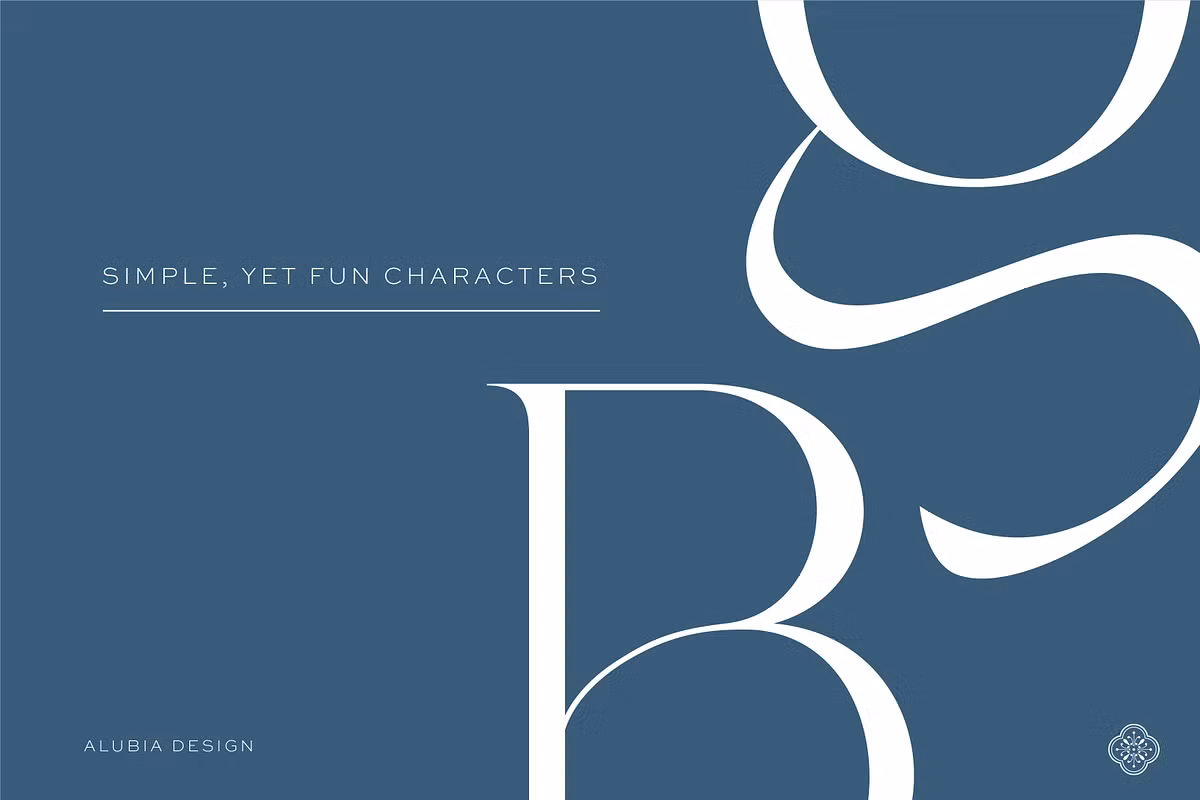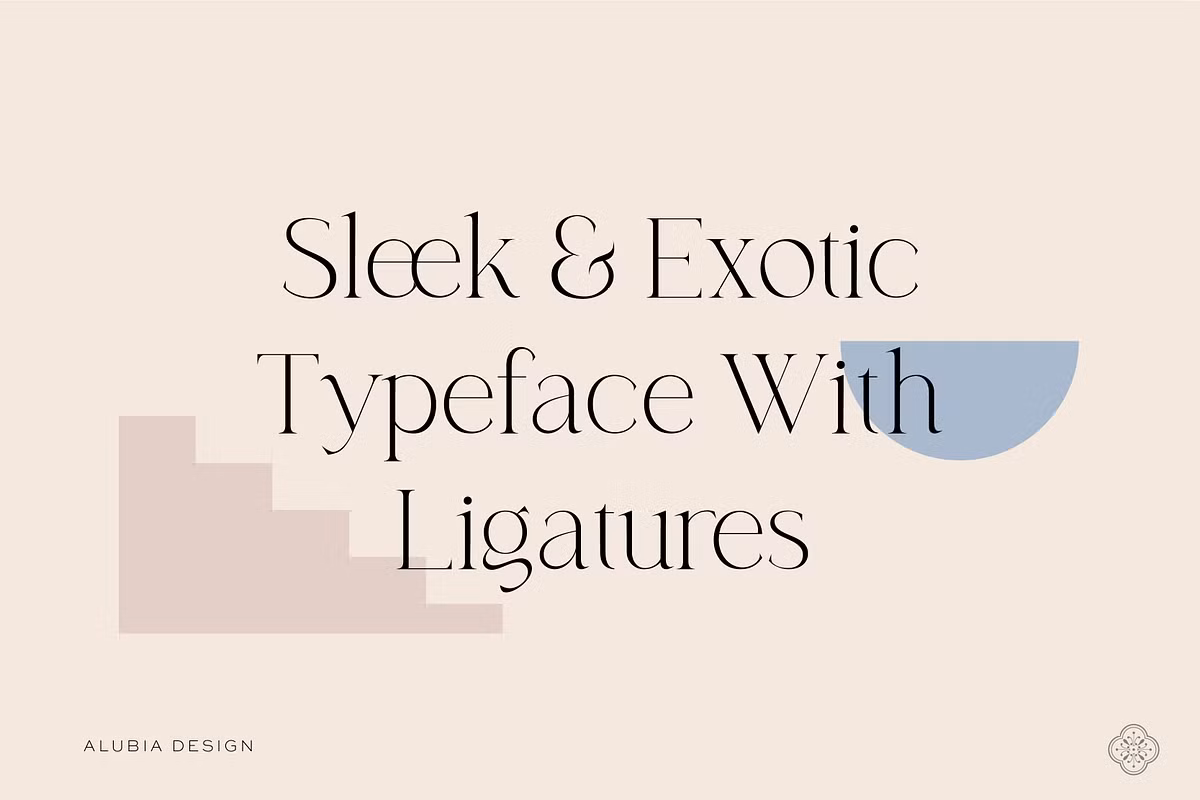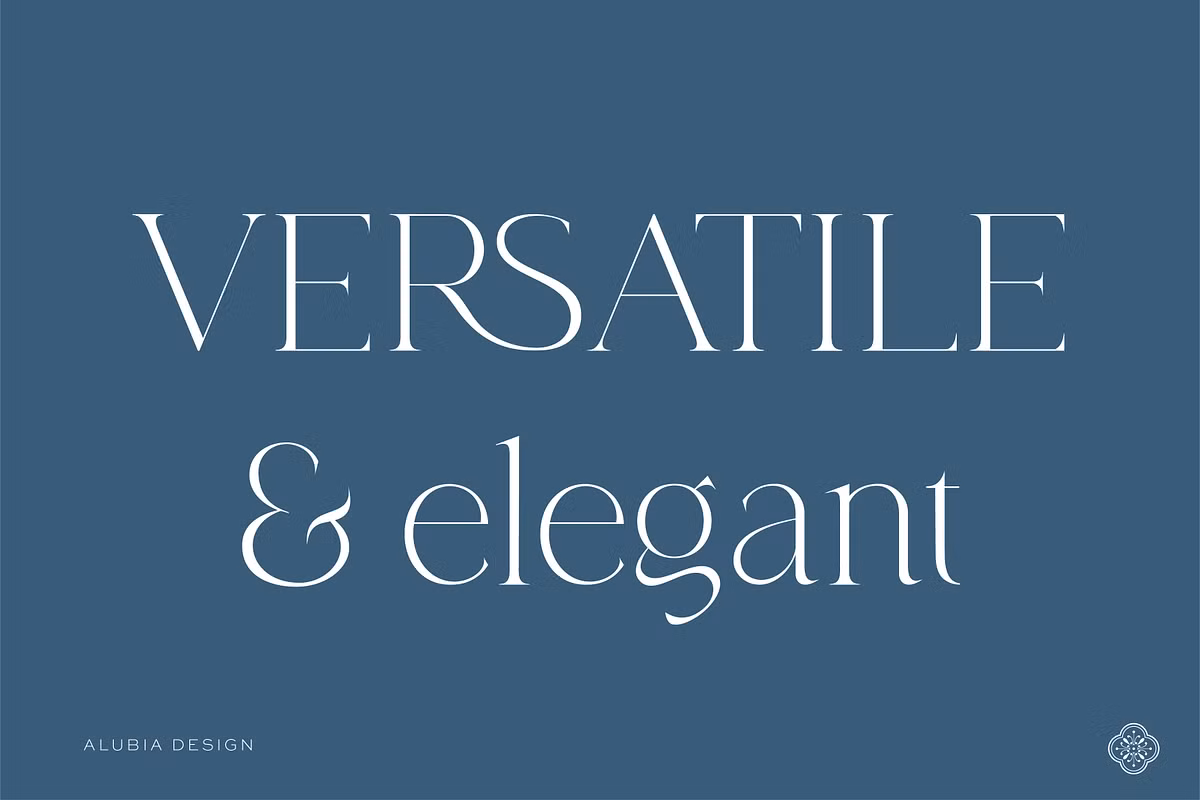
Casablanca: Elegant Serif Typeface with Unique Ligatures for Design
Introducing ‘CASABLANCA’ – a stunning typeface that combines the sleek and exotic characteristics of a serif font with beautifully crafted ligatures. This typeface is an ideal choice for creating elegant and sophisticated designs, making it a valuable asset in any designer’s toolkit.
The CASABLANCA font is really special because it combines modern style with classic elements. It has beautiful curves and sharp lines that make it look amazing, which is why it’s great for high-end brands, magazines, and luxury ads. The way the letters connect, called ligatures, adds a touch of sophistication and makes the text flow better, giving it a more polished look.
If you’re designing something like a wedding invite, a fashion mag, or a company’s visual identity, CASABLANCA will take your typography to the next level. Its unique look will make your design stand out and give it a luxurious feel.
Character Sets
CASABLANCA includes a comprehensive character set that caters to a variety of design needs. It features:
- Uppercase letters: Bold and commanding, perfect for headings and titles.
- Ligature Lowercase letters: These beautifully crafted ligatures allow for seamless connections between letters, enhancing readability and aesthetics.
- Multilingual characters: CASABLANCA supports various languages, making it versatile for international projects.
- Numbers and punctuation: Essential for any typeface, providing complete functionality for all text elements.
CASABLANCA is really versatile, which means it can be used in many different ways. Here are some of the best ways to use it:
- CASABLANCA has a really nice design that can help make your brand look great and stand out from the rest. Its elegant style is perfect for creating logos and brand identities that people will remember.
- Print Media: Ideal for magazines, brochures, and catalogs, CASABLANCA adds a touch of luxury to print layouts, making any publication feel premium.
- Web Design: Utilize CASABLANCA for headings and call-to-action buttons in your website design, providing a visually appealing and user-friendly experience.
- CASABLANCA is a great choice for special occasions like weddings and fancy parties. Its beautiful letters and special connections between them will make your invitations look really impressive and elegant, making a great first impression on your guests.
To maximize the impact of CASABLANCA in your designs, pairing it with complementary typefaces can create a harmonious visual experience. Here are some pairing suggestions:
We’ll use CASABLANCA for headings, it’s a great choice because it’s elegant and fancy. Then, for the body text, we’ll use Montserrat, which is a modern sans-serif font. This combination works really well, the simplicity of Montserrat balances out the fanciness of CASABLANCA, making it easy to read and look at.
Pair CASABLANCA with Lora for a timeless look. Lora’s serif features match CASABLANCA’s classy feel and make it easy to read. This combo is a great choice because Lora’s simple design doesn’t compete with CASABLANCA’s elegance, making it perfect for projects that need a touch of sophistication.
For a clean and modern look, you can use CASABLANCA to make your text stand out and Open Sans as a simple and easy-to-read font for the rest of your content. This combination works well because CASABLANCA is great for grabbing attention, while Open Sans is perfect for keeping your readers engaged without any distractions.
CASABLANCA is more than just a font – it’s a way to add style and class to your work. It has some really cool features like special letter combinations and a huge range of characters. This makes it super useful for designers who want to create things that stand out.